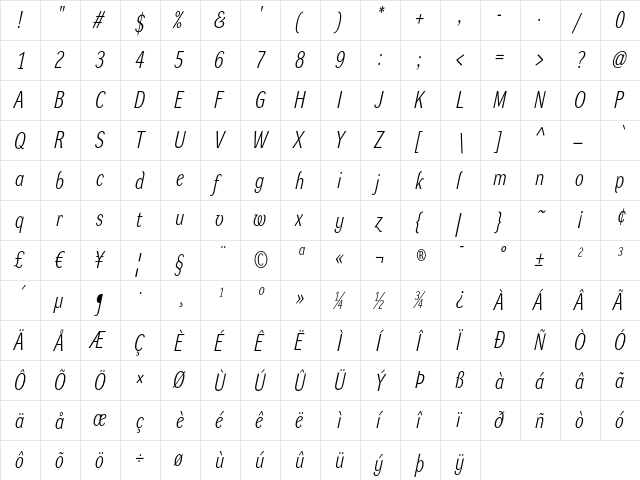
DynaGrotesk LC Italic
Design Context for DynaGrotesk LC Typeface
DynaGrotesk LC has the quiet confidence of well-executed sans-serif typography: versatile, unobtrusive, and dependable at any size. Its italic angle brings a sense of urgency and motion to the letterforms.
Font Pairing: Works well alongside a characterful serif or display font that can carry the expressive load while DynaGrotesk LC handles the functional copy.
Pro Tip: Pair DynaGrotesk LC with a display or serif font for headlines — its neutral character makes it an excellent supporting player in complex typographic systems.